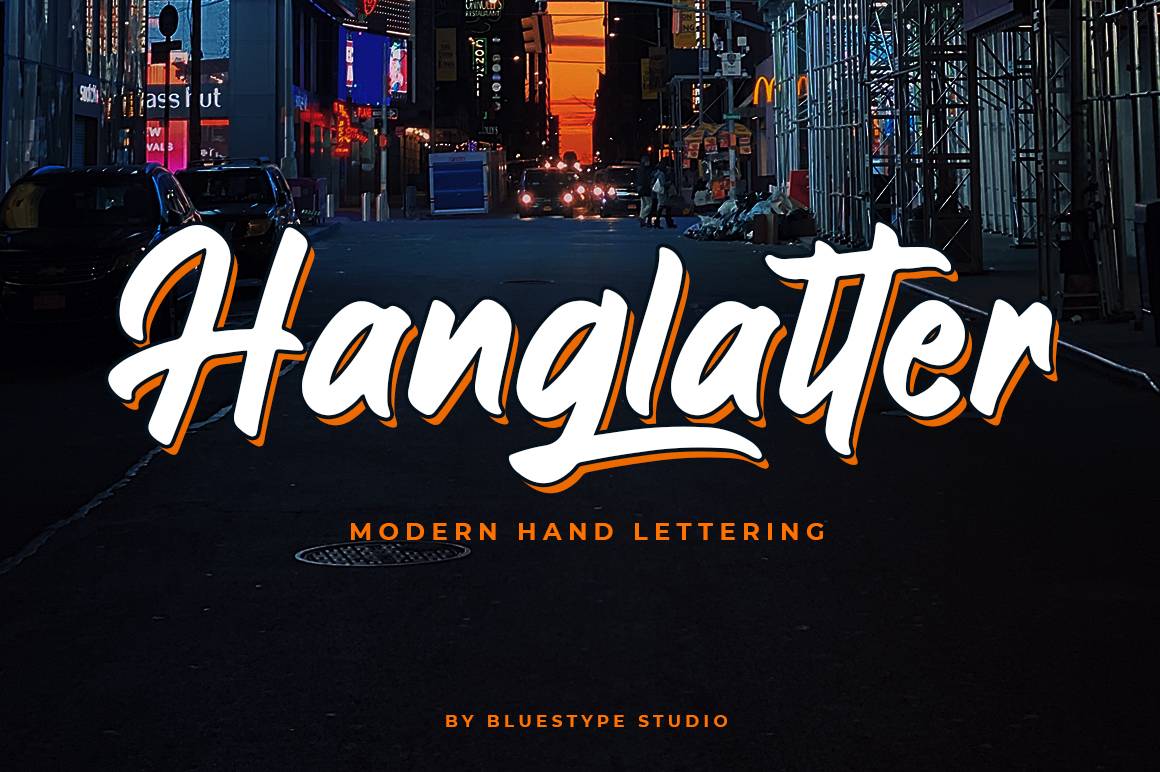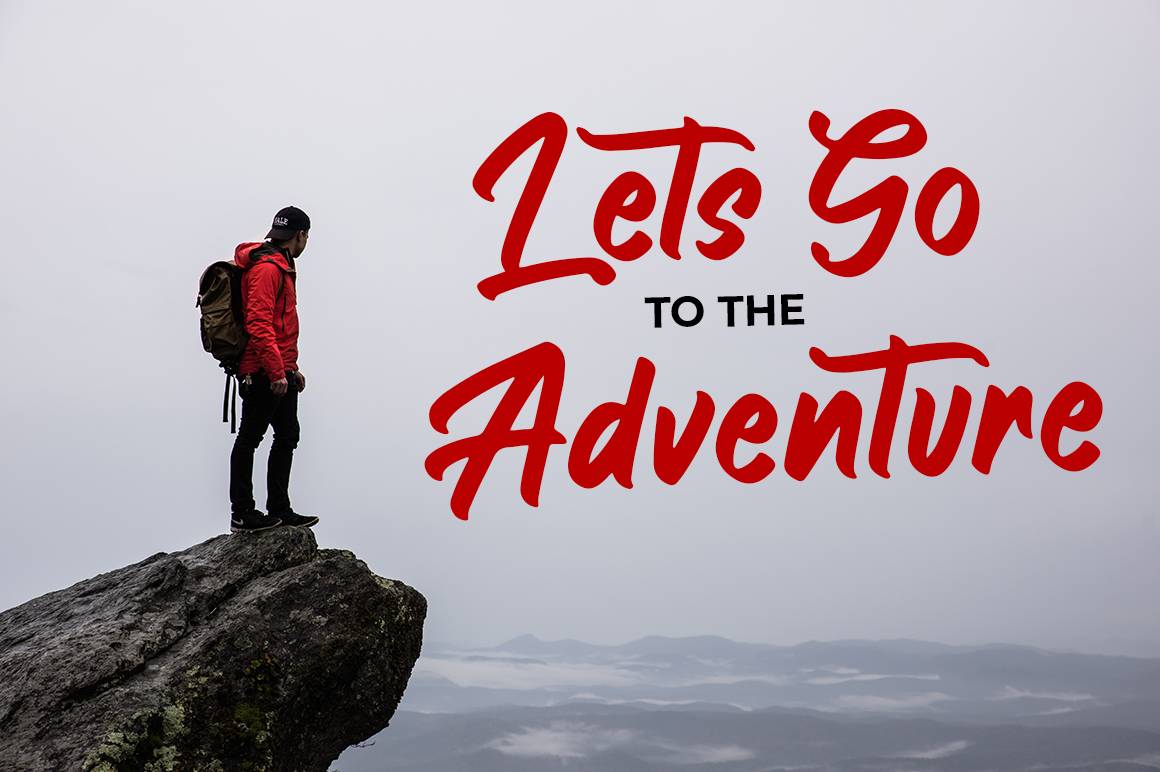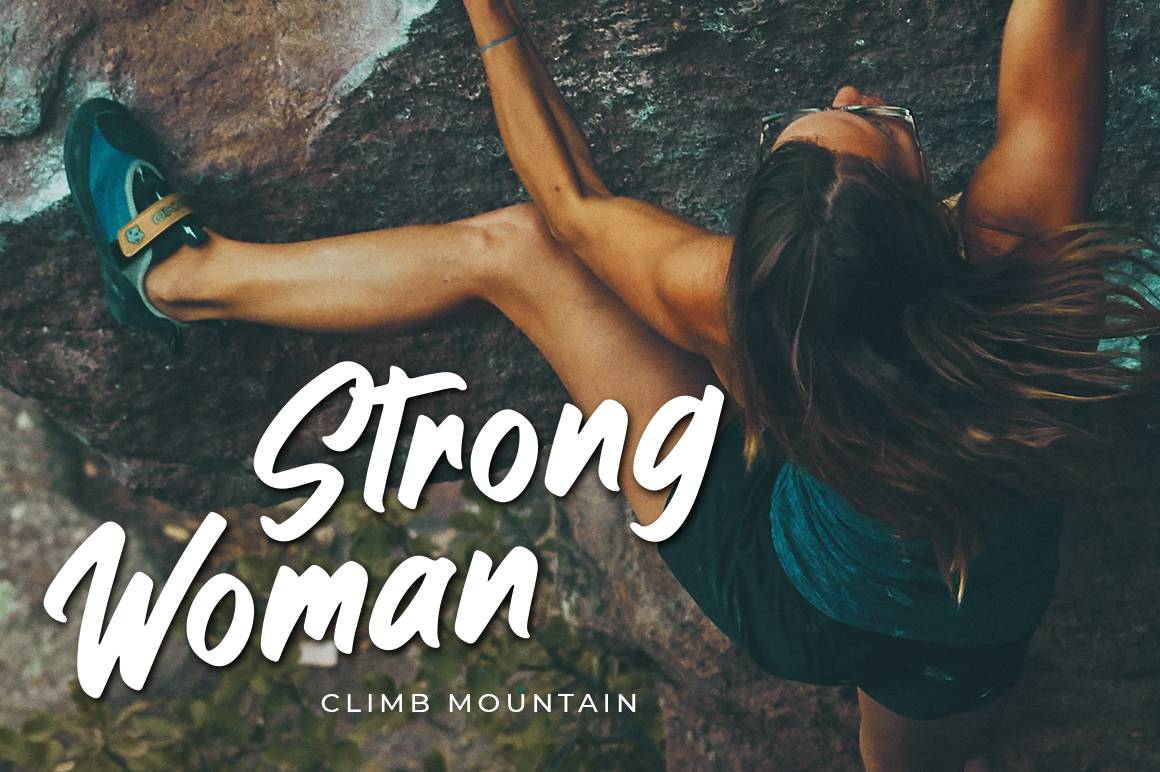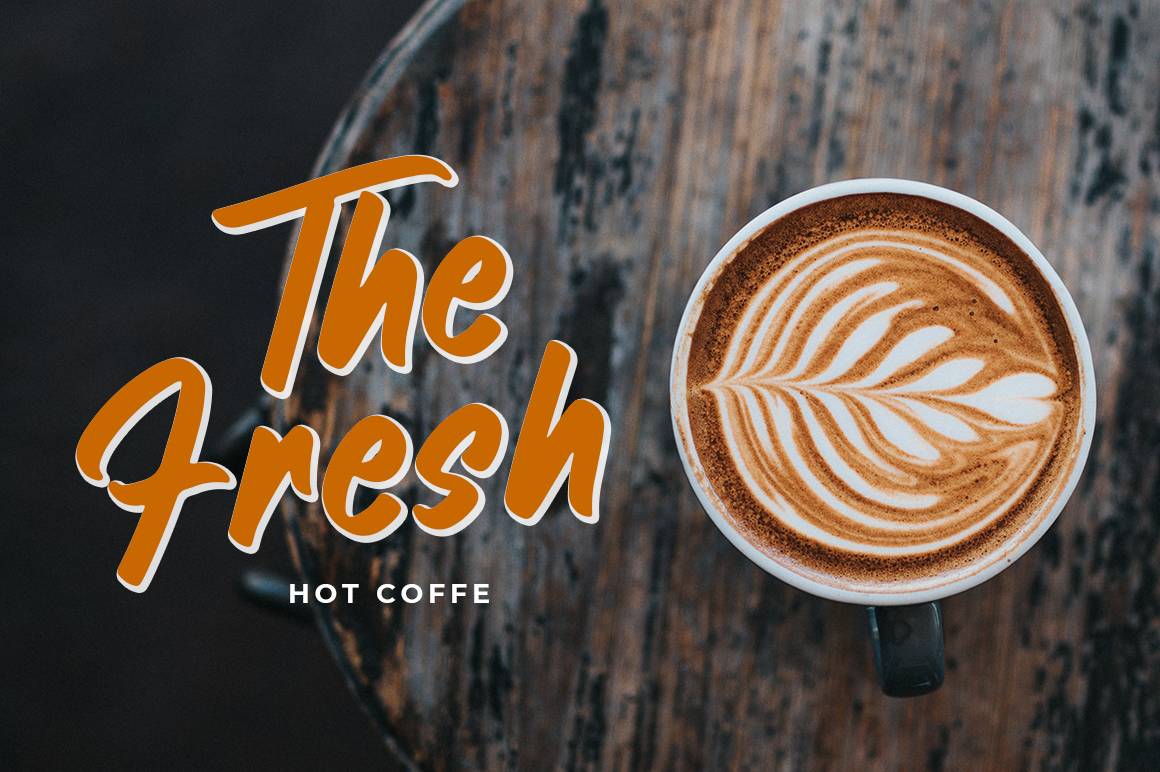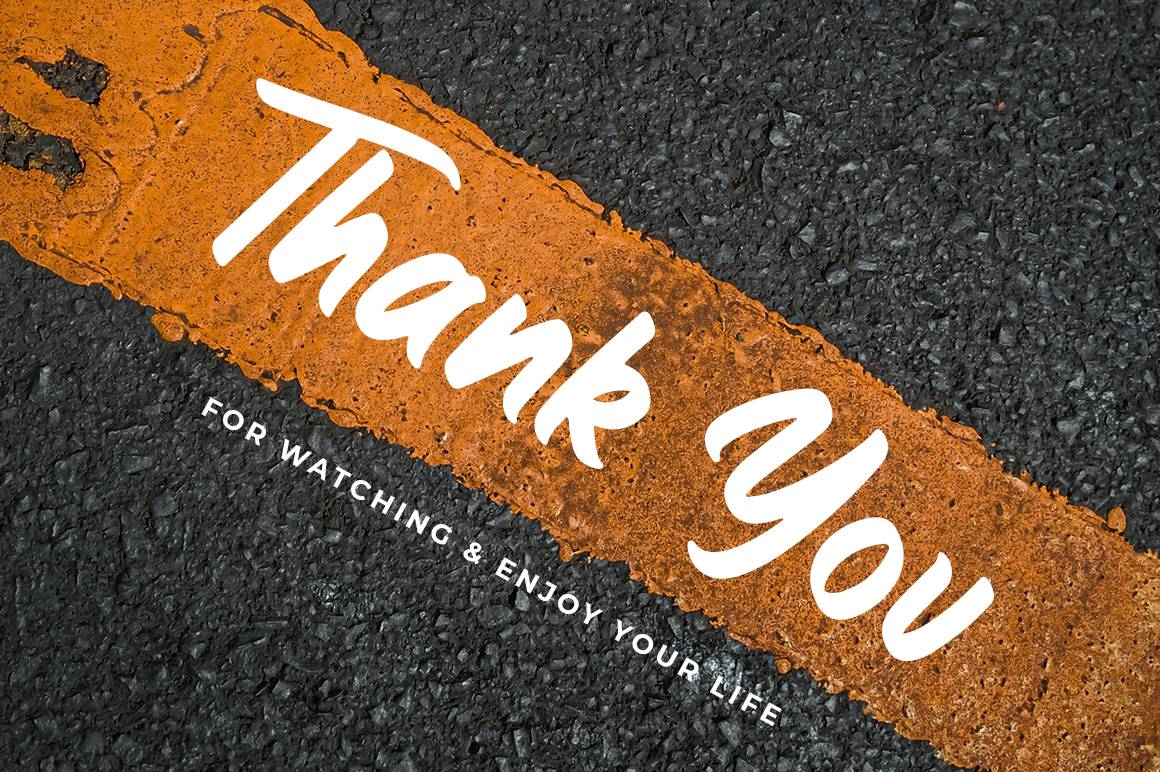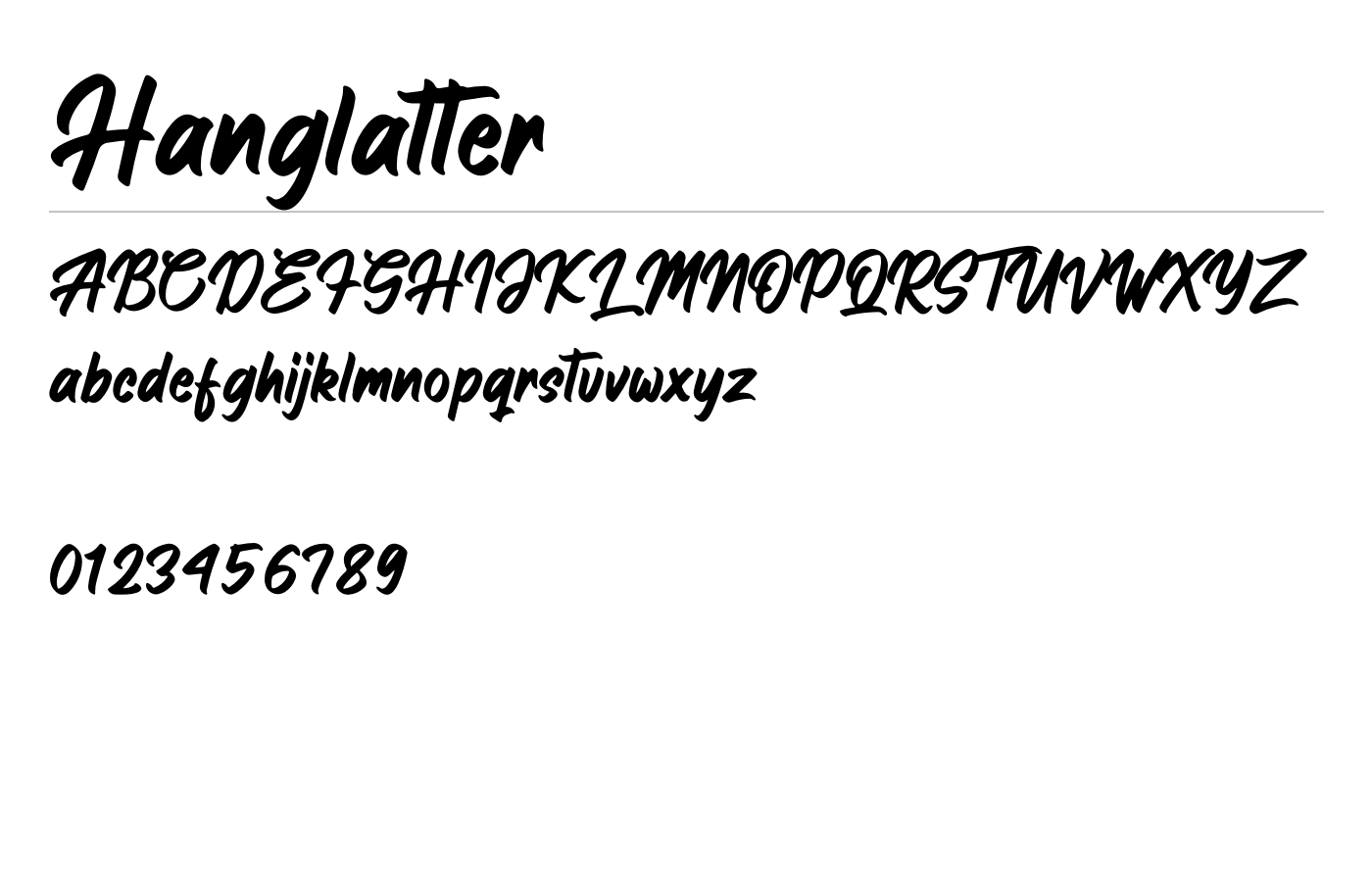
Hanglatter is a bold, brush script font that exudes a lively and casual personality with its smooth, flowing strokes and slightly irregular letterforms. It feels hand-painted, making it perfect for creative, playful, and energetic branding or headlines that want to convey a personal, friendly touch. This font works well in logos, posters, and packaging where a dynamic and approachable style is desired.
Hanglatter Font
About Hanglatter Font
| Font family | Hanglatter Font |